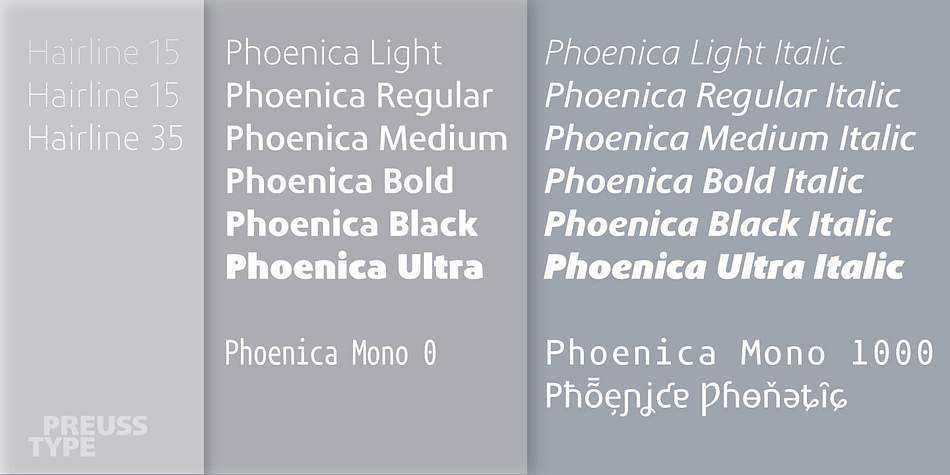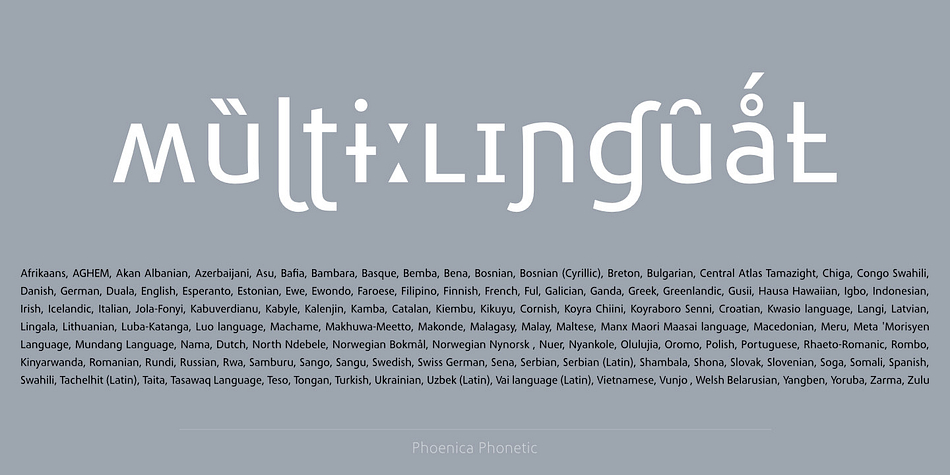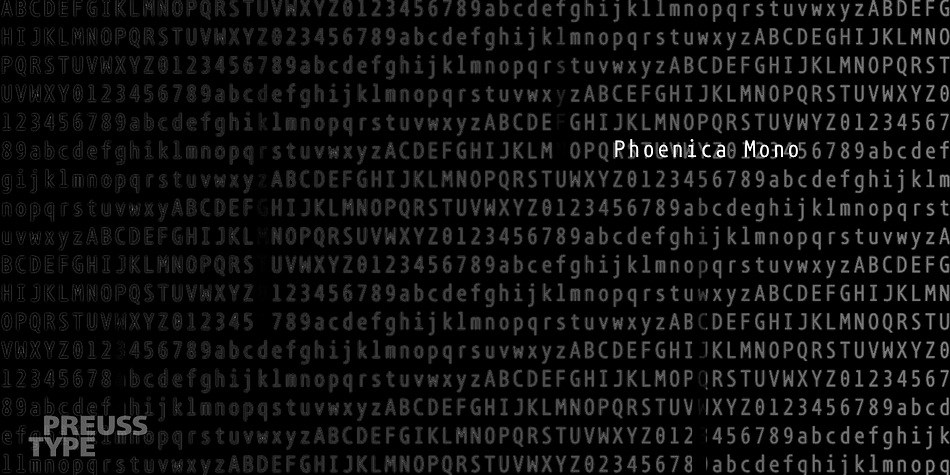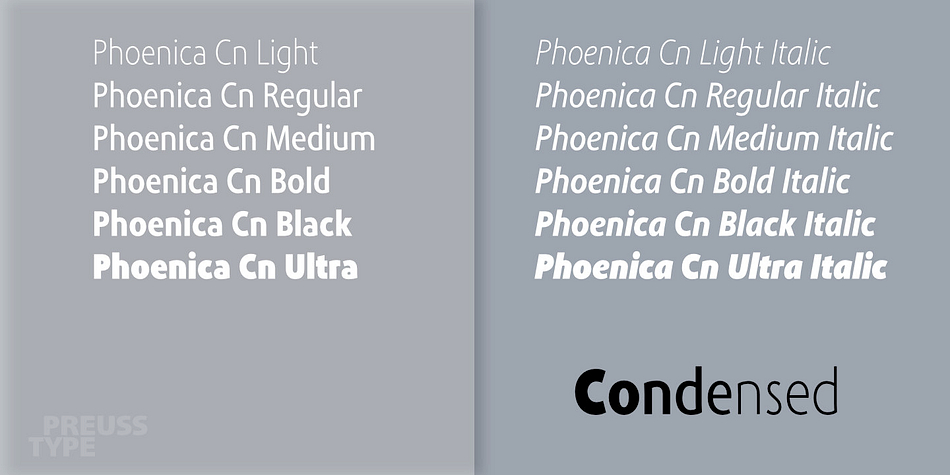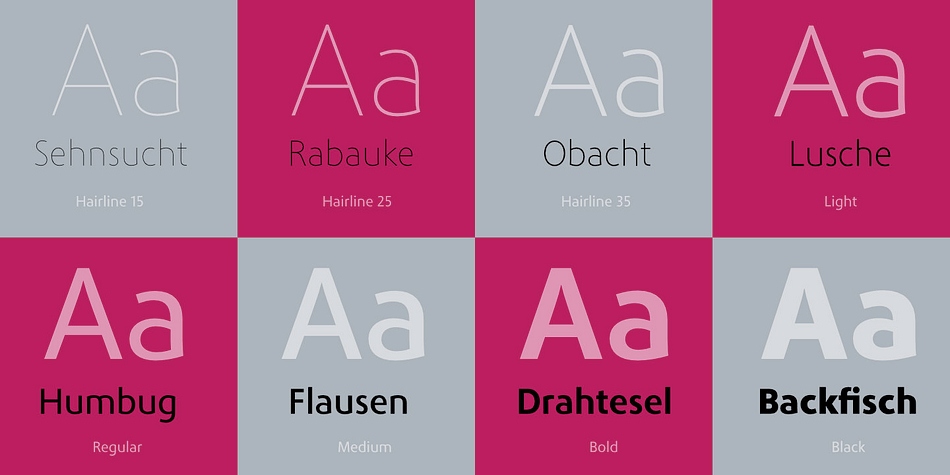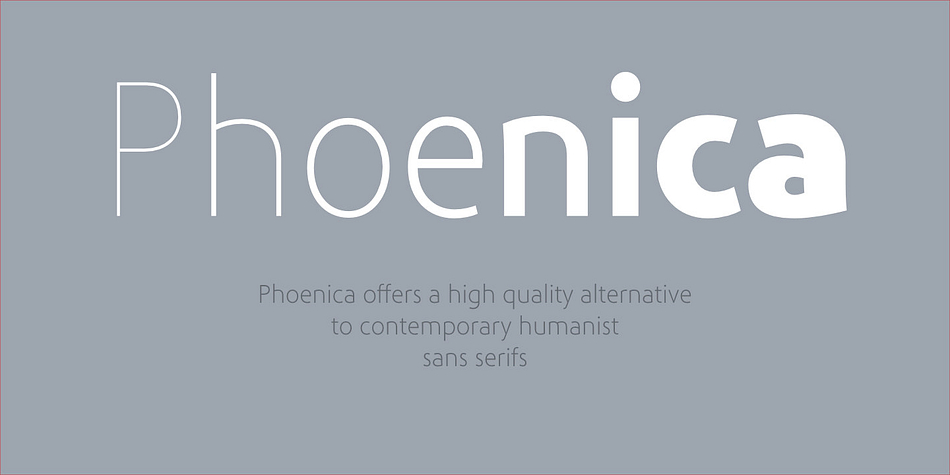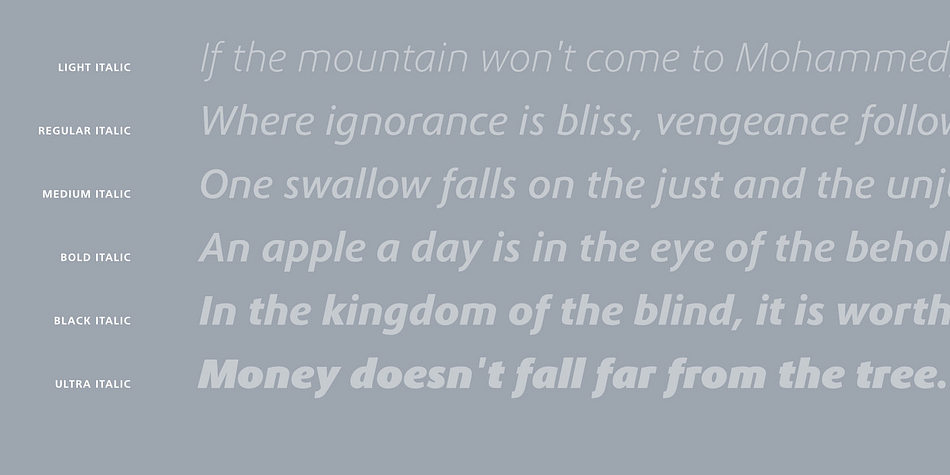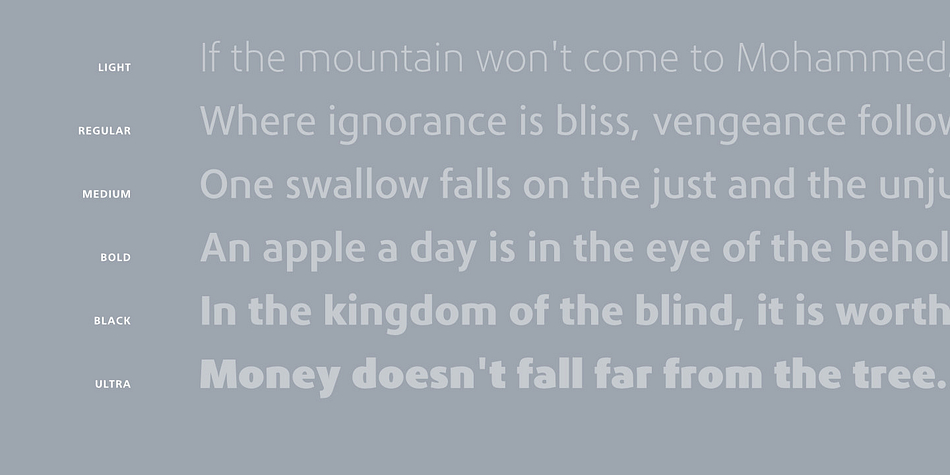
Phoenica PRO is a sans serif font family. This typeface has forty-nine styles and was published by preussTYPE.
Phoenica is a contemporary humanistic typeface family suitable for traditional high-resolution print purposes, office application and multi-media use.
Phoenica offers to you as a welcome alternative to the contemporary humanistic Sansserif. It is a very adaptable family for text and Corporate design uses. Several companies have discovered PHOENICA meanwhile as a Corporate font for themselves and use them very successfully. She provides a respectable typeface combined with refinement and elegance.
Phoenica family has six weights in regular and italic. In addition more than three fine Haarline weights (Hairline 15, 25, 35). These are a total of 27 possibilities…
Phoenica as well as Phoenica Condensed are excellently readable fonts, because they were optimised especially for amount sentence. Both basic styles (Regular and Condensed) are tuned on each other and follow the same form principle. The family is neither exclusively geometrical nor is constructed humanistically, the forms were sketched on quick and light Recognition effect of every single letter.
The subfamily Phoenica Mono contains monospaced typefaces. The special feature here is that they are getting an ever widening range with the same weight. To my knowledge, this is unique in typeface design.
The Phoenica family design and logo is suited for all only conceivable uses like newspapers and magazines, for the book typography and Corporate Design.